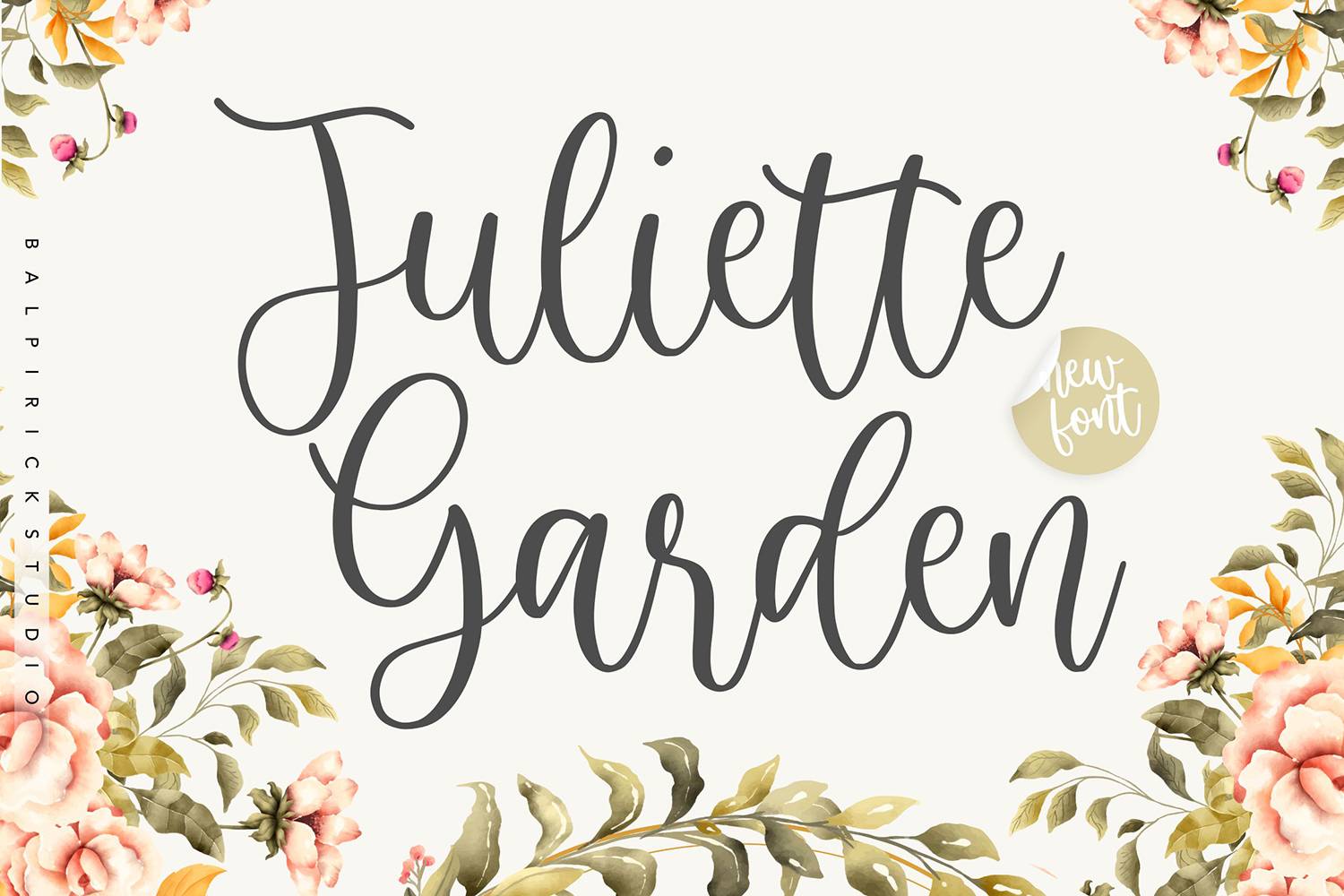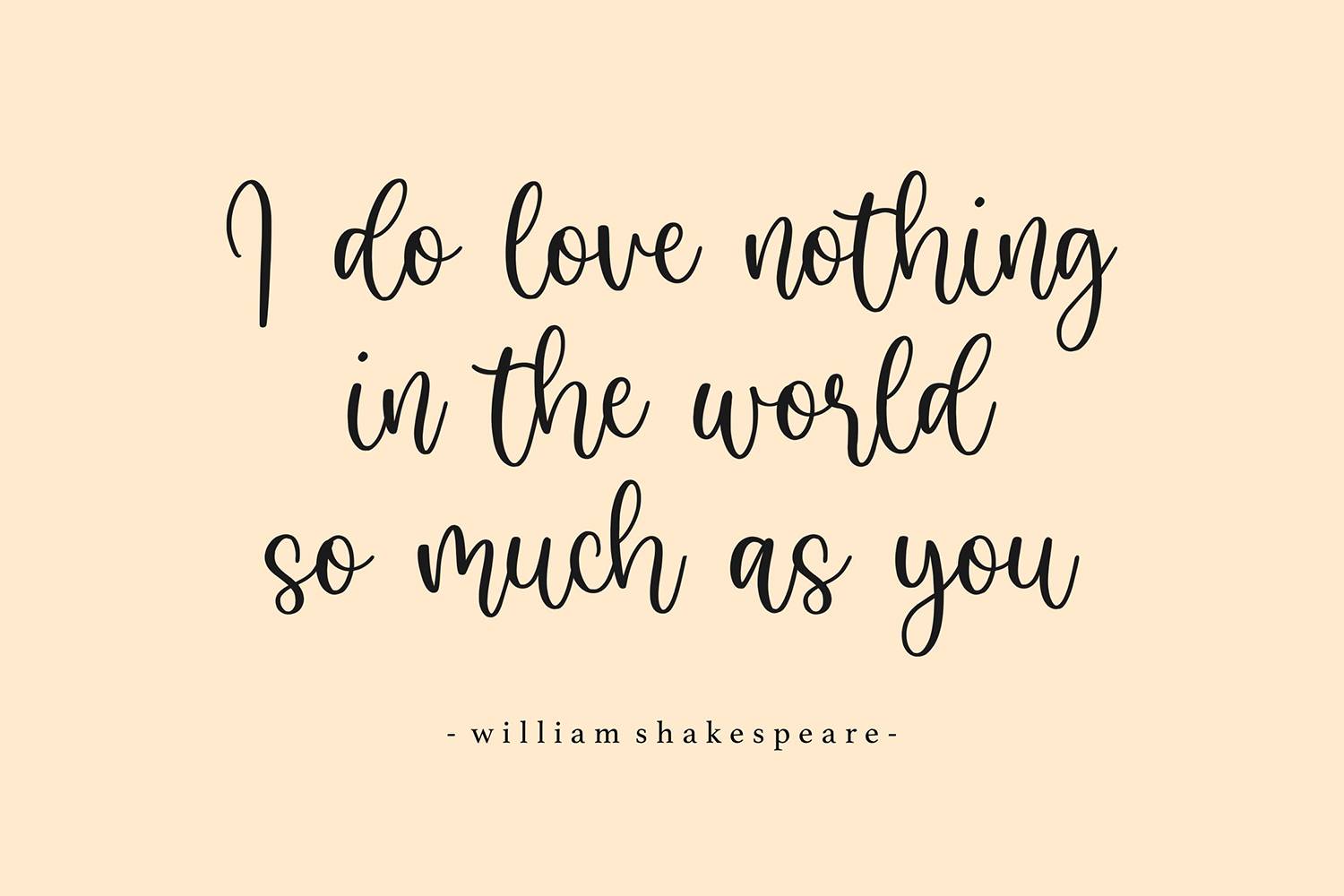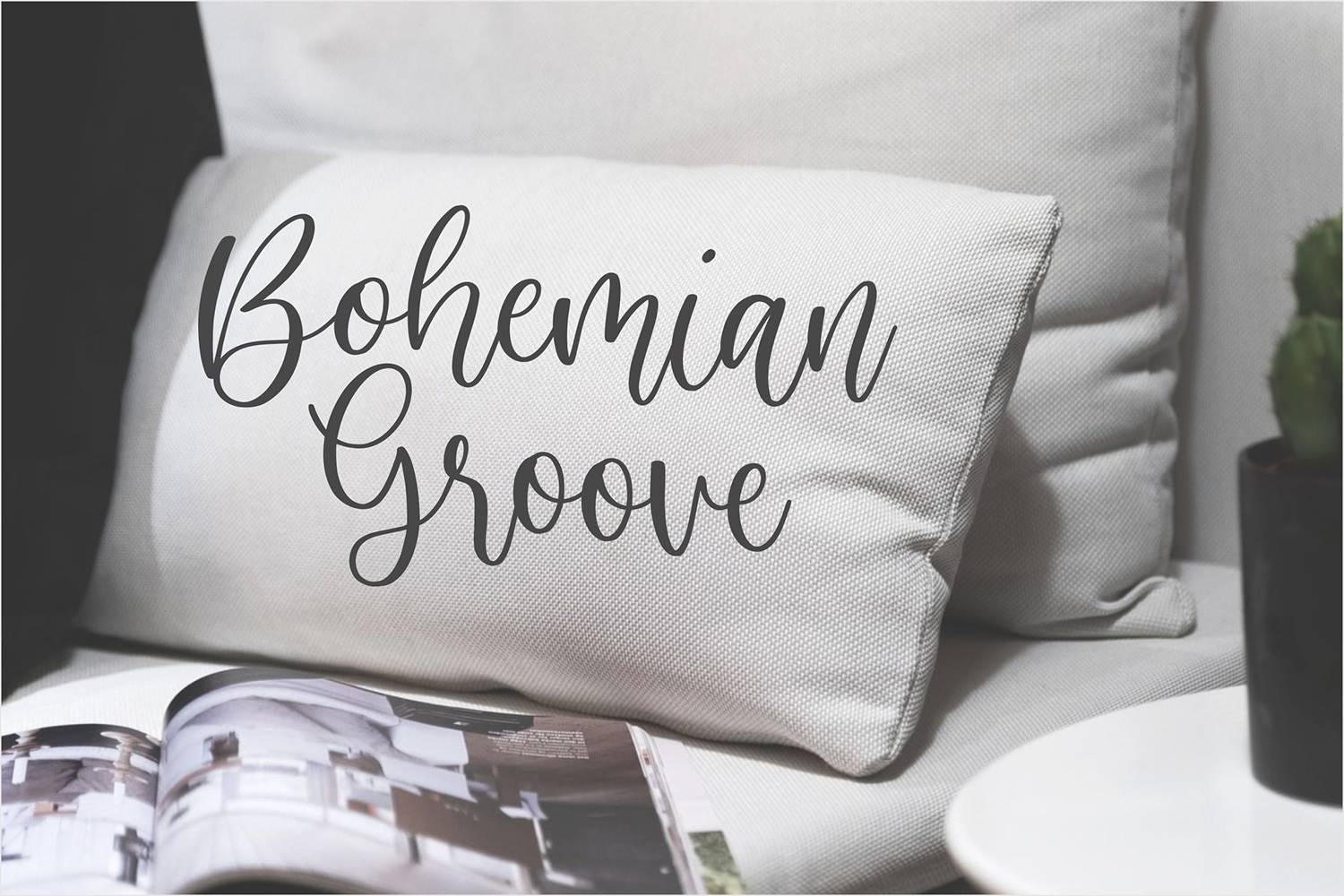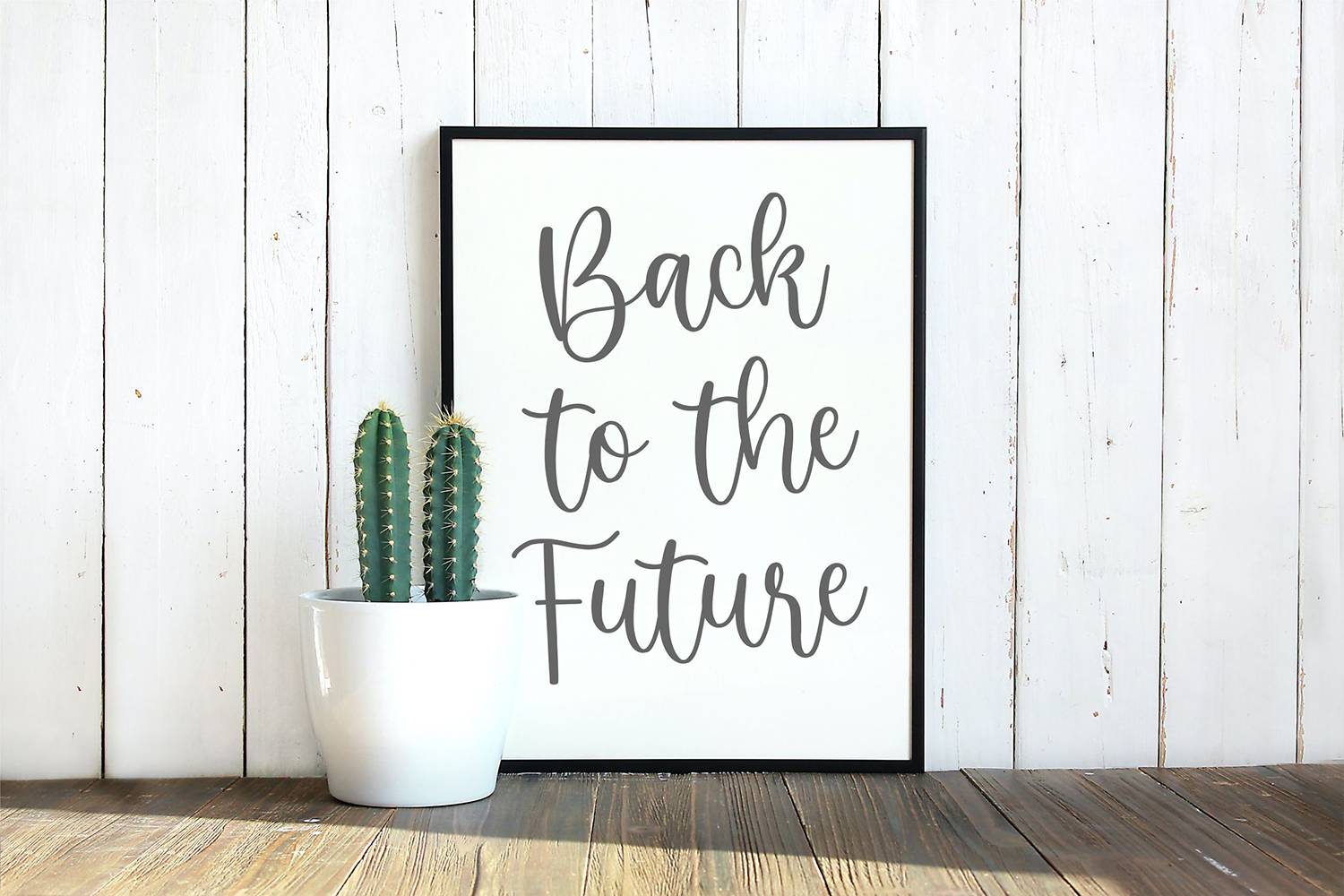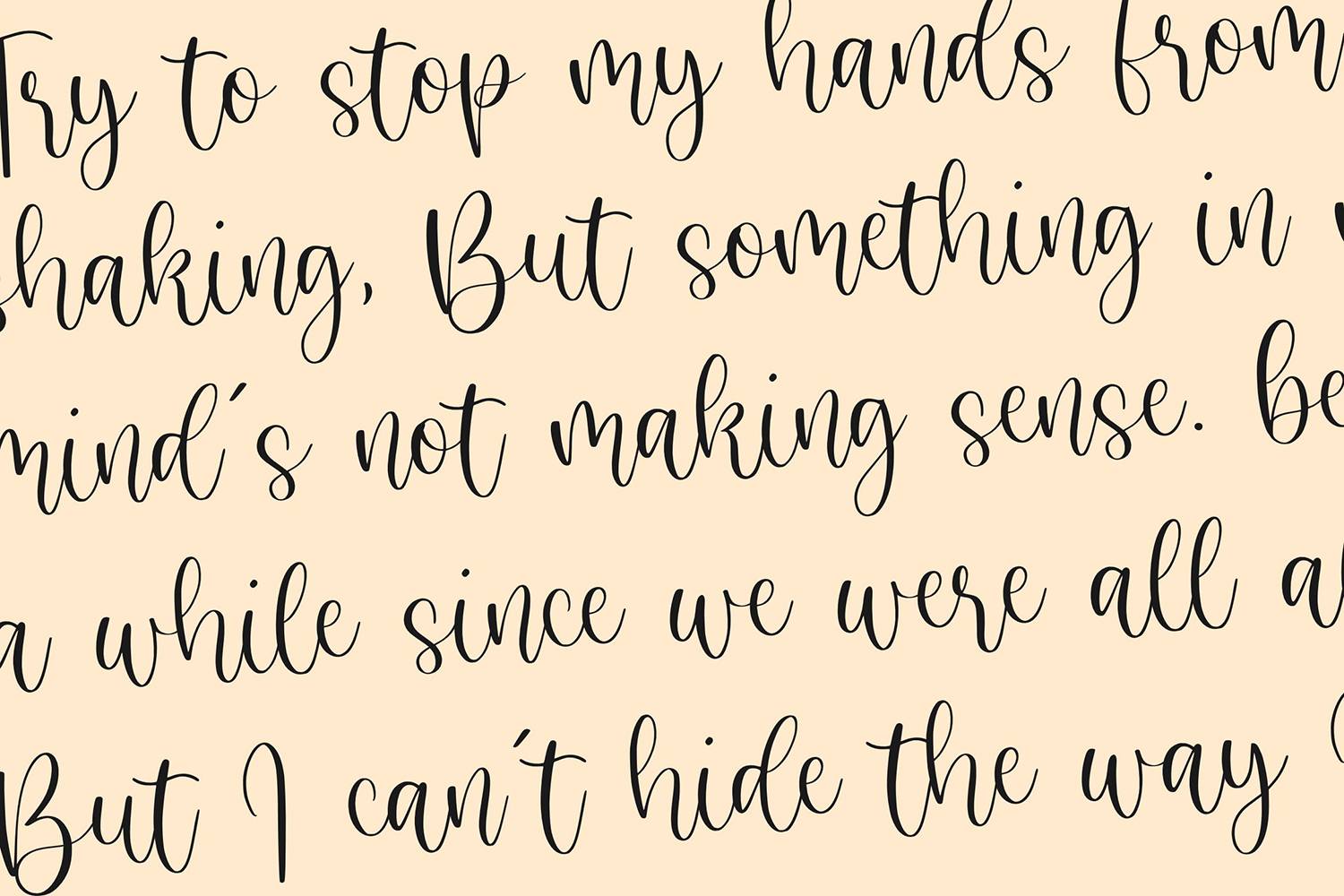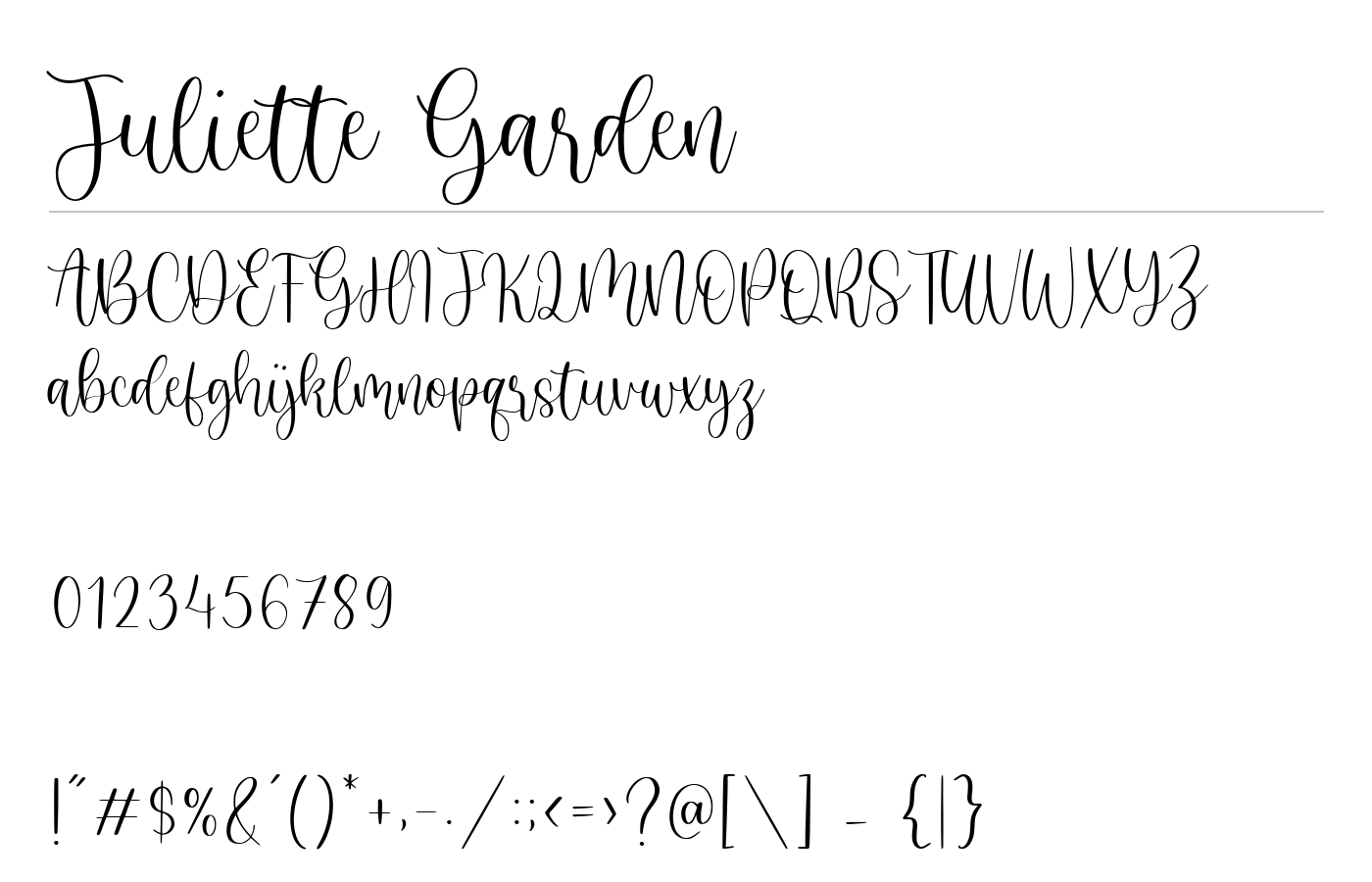
Juliette Garden is a delicate, elegant script font with a graceful, hand-lettered feel. Its slender strokes, high contrast, and flowing letterforms create a charming and romantic look, perfect for invitations, branding, and feminine design projects. This font adds a sophisticated, personal touch wherever a gentle, stylish impression is desired.
Juliette Garden Font
About Juliette Garden Font